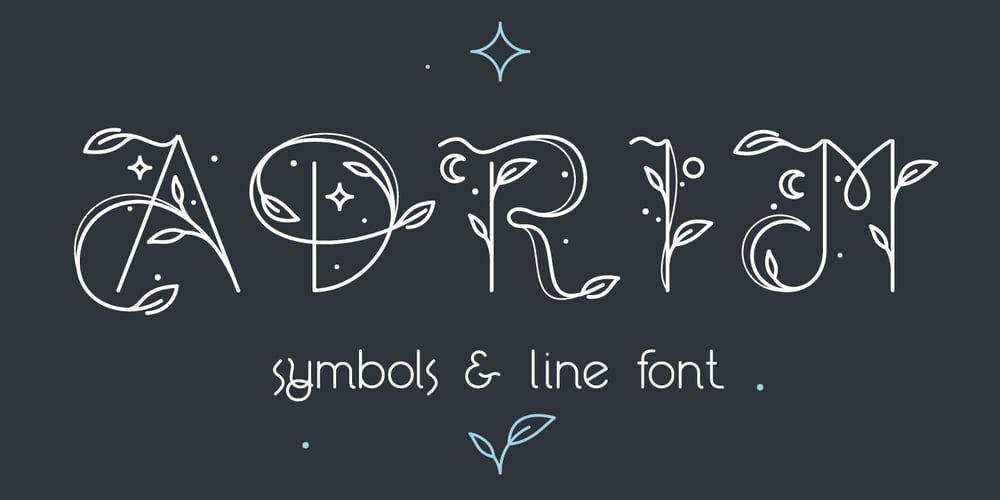
Adrim Font Family was designed by Roman Korolev and published by Kaer. Adrim contains 2 styles and family package options. Hi there! I’m happy to present you my new font!Adrim is a modern symbols and lines display font. Each uppercase character have a unique pattern with moon, stars and leaves. Here are also clear font option.It is perfect to use in any vintage logos, branding, flyers, product packaging, romantic stationery, ecology posters, astrology blog design, holiday invitations.What you will get:* Pattern and Clean styles* Uppercase and lowercase* Numbers* Symbols* Ligatures* Punctuation* Multilingual supportIf Adrim font family is not ok, please check out Avery https://www.myfonts.com/fonts/kaer/avery/I hope you enjoy this font. Follow my shop to receive updates of products and the very hottest news! If you have any question or issue, please contact me: kaer.pro@gmail.com Please request to add additional characters and glyphs if you need! Thank you!